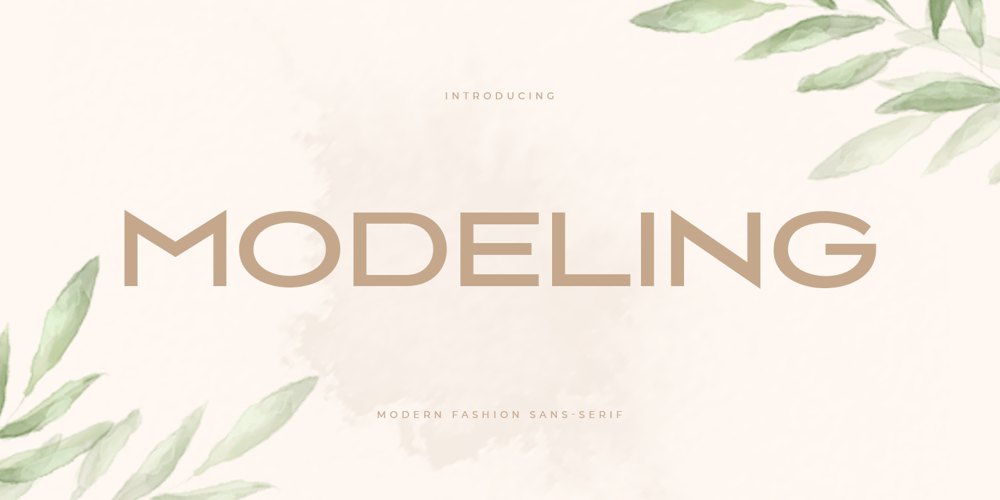
Modeling SS
Modeling SS font
Modeling SS Font Family was designed by Zamroni Hamzah and published by Sensatype Studio. Modeling SS contains 1 styles and family package options. Modeling is a Modern Fashion Sans SerifIn a new generations, we analyze that any designer or brand owner need to make their brand standout. As our focus that analyze any typeface that helps to leverage any logo design to look more modern, fashionable and unique. We prepared this font with expanded style characters to help you create a classy branding in any projects.Modeling Modern Fashion font ready with: Creative Expanded Characters Preview as a inspirations that you can do with Modeling font Ready with Lowercase and Uppercase characters Wish you enjoy our font. ๐Ÿ™‚